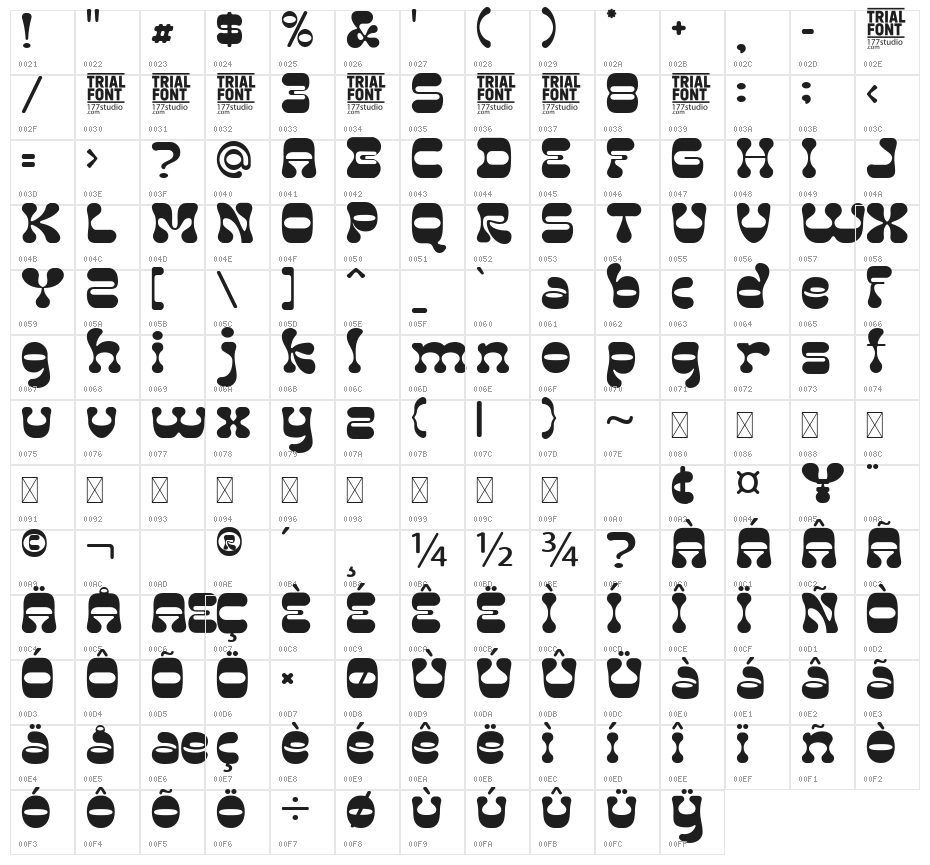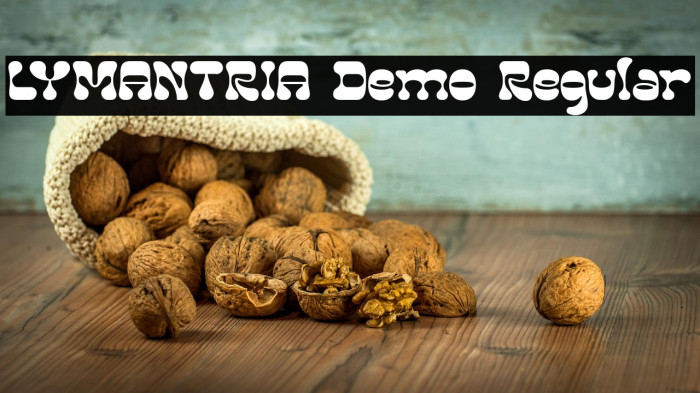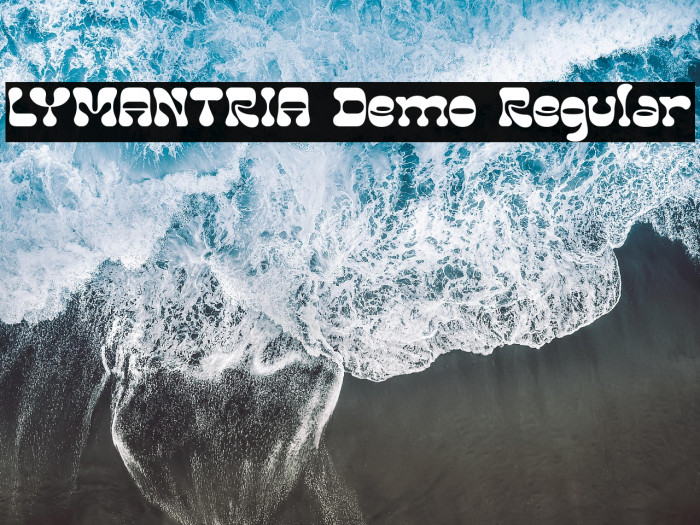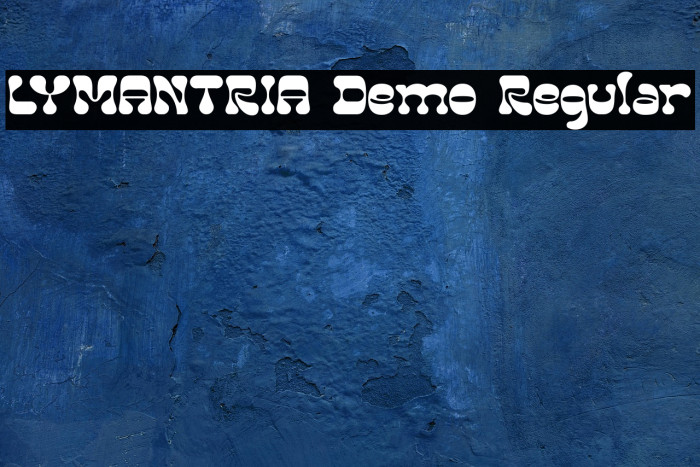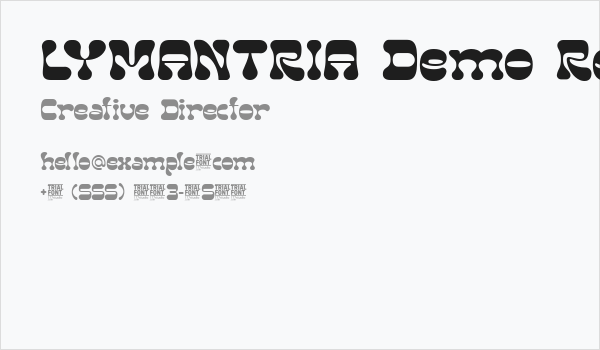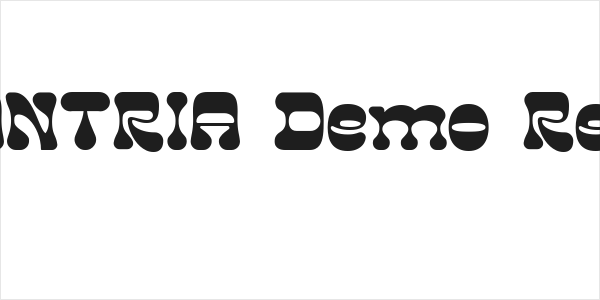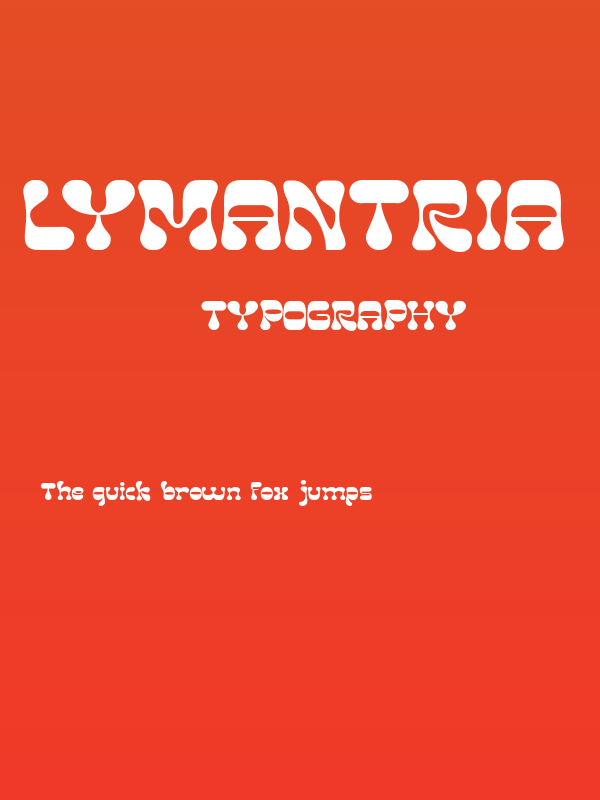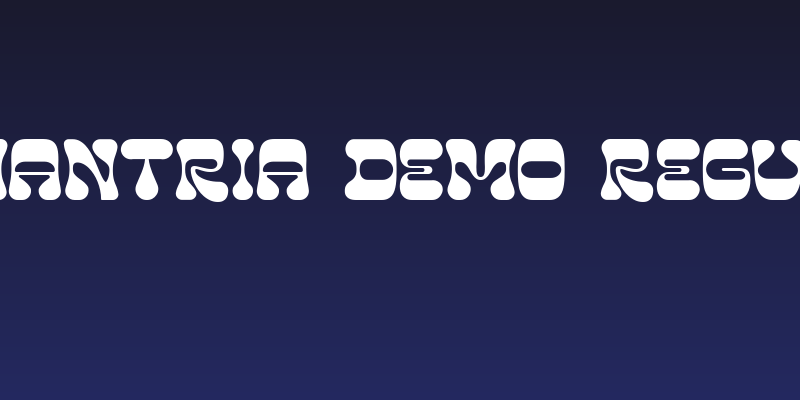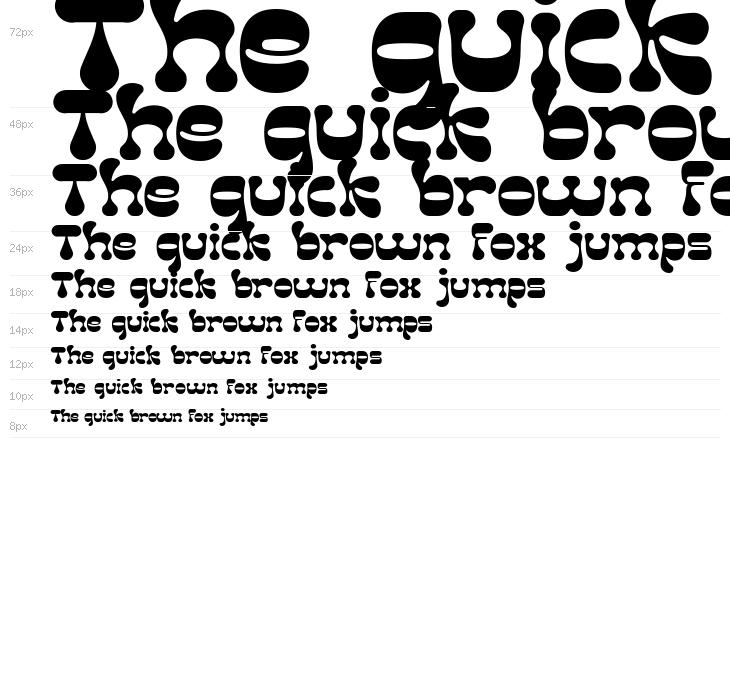
LYMANTRIA Demo Regular Font
LYMANTRIA Demo Regular Description
This font features a bold, playful design with rounded, bubble-like characters that create a sense of fun and whimsy. The letters are thick and substantial, providing a strong visual impact. The unique style is characterized by its rounded edges and consistent stroke width, giving it a cohesive and modern appearance. The font's design is highly decorative, making it suitable for eye-catching headlines and creative projects. Its distinctiveness lies in the exaggerated curves and playful forms, which add a lively and energetic feel to any text.